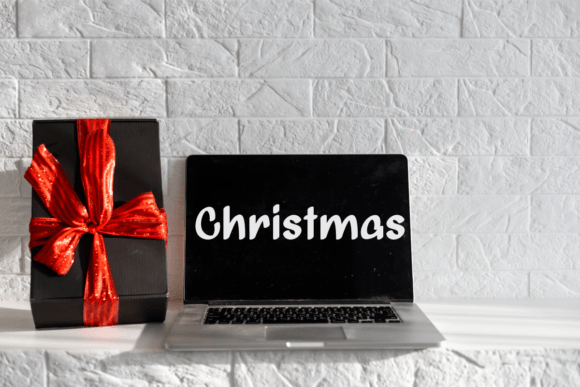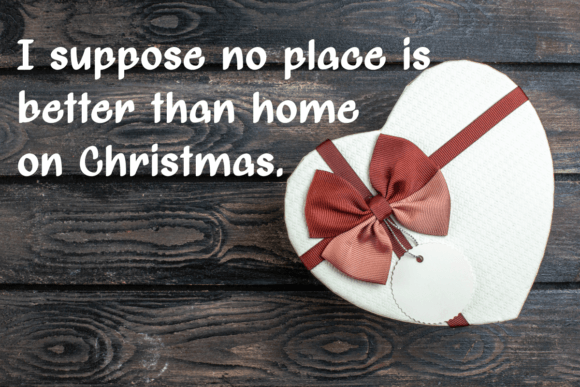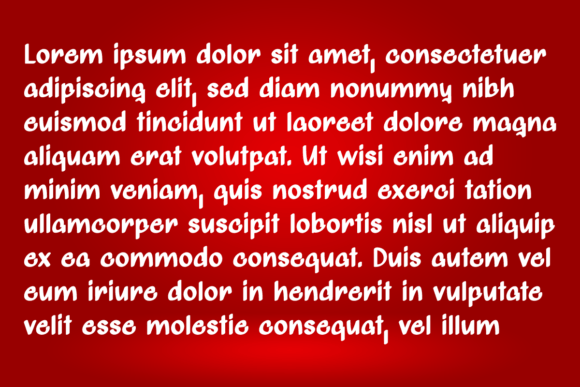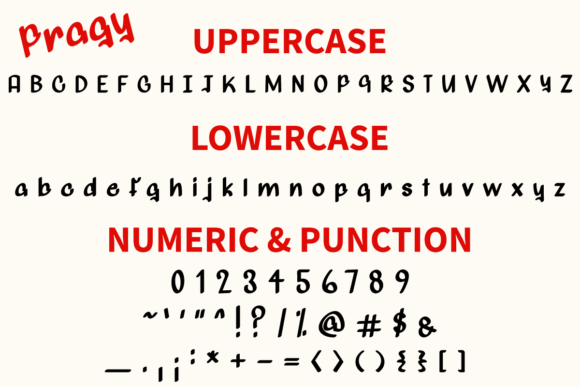
Introduction to Pragy Font
Have you ever been working on a creative project, pouring your heart and soul into every detail, only to feel like something’s missing? Maybe it’s the perfect font to bring your design to life. That’s where Pragy Font comes in – a fun and friendly handwritten font that’s sure to add a touch of whimsy to your projects.
As a designer, you know how valuable a high-quality font can be. It’s not just about aesthetics; a great font can elevate your entire design and make it stand out. And with Pragy Font, you’ll have access to a wide range of creative possibilities. Whether you’re working on a logo, wedding invitation, or advertisement, this font is perfect for adding a personal touch.
- Unique characteristics include a modern, clean design aesthetic and versatile font styles
Honest Review: Pragy Font
As a designer, I’m always on the lookout for high-quality design resources that can elevate my creative projects. The Pragy Font is one such find that has impressed me with its sleek and modern design.
- ✨ The font’s clean and minimalist design makes it perfect for use in logos, branding materials, and other visual identity elements.
However, there are a few limitations to consider: ⚠️ The font’s character set is limited, which may not be suitable for complex or long-form text-based projects.
Overall, I’m impressed with the Pragy Font’s design and functionality. It’s a great addition to any designer’s toolkit, and its free download option makes it an excellent value. While it may not be suitable for every project, I’d definitely recommend it for creative projects that require a modern and stylish font.
Pragy Font is ideal for a wide range of creative projects, including logos, business cards, brochures, and social media graphics. Its high-quality design and transparent background make it a versatile and convenient design resource for any project.
Compared to Pragy Font, Montserrat Font has a more geometric and modern feel, making it suitable for projects that require a sleek and contemporary look. While Pragy Font has a more vintage and elegant feel, Montserrat Font is ideal for projects that require a more modern and edgy look.